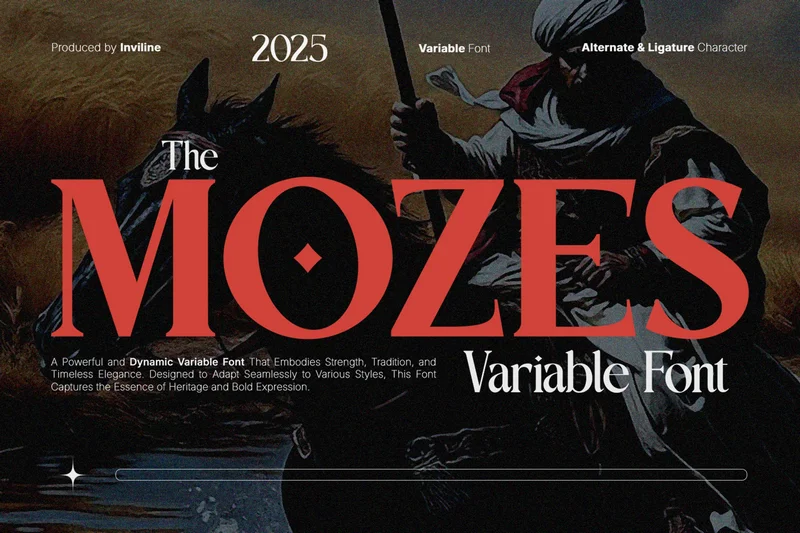
Mozes – Modern Serif Variable Font
A powerful serif typeface inspired by medieval elegance and crafted with contemporary precision. Mozes features a dynamic variable system that lets you transition smoothly between weights—offering versatility for everything from bold editorial headlines to refined branding assets. With strong serifs, unique diamond-shaped alternates, and a characterful edge, Mozes is designed to evoke both history and innovation in a single font system.
Diamond Accents and Historic Flair
Editorial Headlines
Fantasy and Historical Book Covers
Dark Academia Posters
Premium Branding Projects
Gothic Visual Identity
Timeless Packaging Design